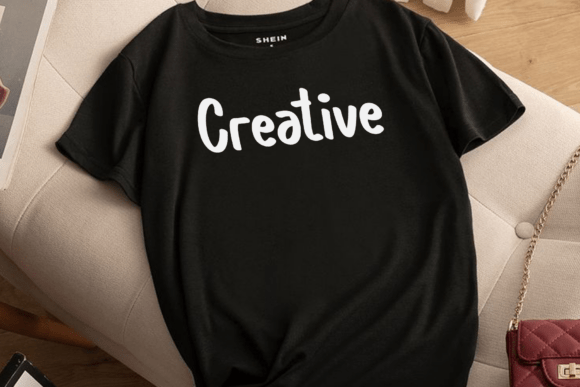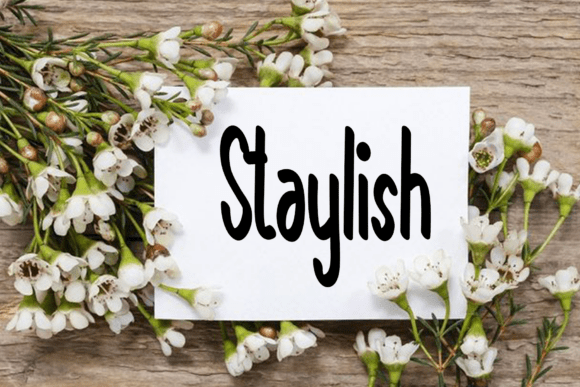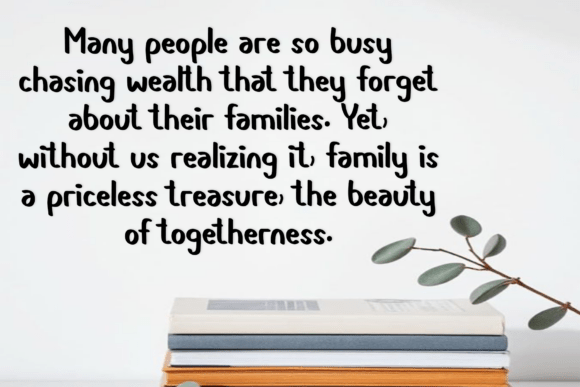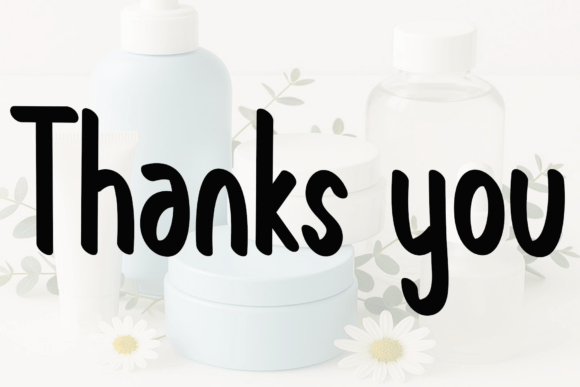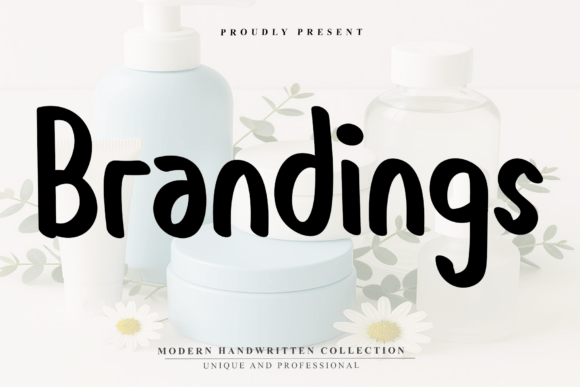
Introducing Brandings Font: The Perfect Blend of Warmth and Personality
In the world of typography, fonts play a crucial role in conveying the tone and personality of a brand. For designers and crafters, finding the right font can make all the difference in creating a lasting impression. This is where Brandings Font comes in – a casual handwritten font that radiates warmth and personality, perfect for adding a personal touch to any design.
The Charm of Handwritten Typography
Brandings Font is a beautiful example of handwritten typography, featuring smooth strokes, natural curves, and easy-flowing letterforms. Its authentic handwriting style captures the essence of human touch, making it ideal for designs that require a personal and friendly feel. The font’s modern and approachable style ensures that it stays relevant and versatile, suitable for a wide range of applications.
Key Features of Brandings Font
- Smooth Strokes: Brandings Font boasts smooth, fluid strokes that give it a natural and effortless look.
- Natural Curves: The font’s curves are organic and authentic, adding to its charm and character.
- Easy-Flowing Letterforms: The letterforms are designed to flow seamlessly, creating a sense of continuity and harmony.
- Modern and Approachable: Brandings Font strikes the perfect balance between modernity and approachability, making it suitable for a wide range of designs.
Ideal Use Cases for Brandings Font
Brandings Font is incredibly versatile and can be used in various design projects, including:
- Quotes: Add a personal touch to inspirational quotes, making them more relatable and engaging.
- Invitations: Create warm and inviting invitations for special occasions, such as weddings, birthday parties, or baby showers.
- Branding: Use Brandings Font to create a unique and recognizable brand identity that resonates with your target audience.
- Social Media Posts: Elevate your social media presence with eye-catching posts that feature a personal and friendly tone.
Benefits of Using Brandings Font
By incorporating Brandings Font into your designs, you can enjoy several benefits, including:
- Readability: The font’s clear and easy-to-read design ensures that your message is conveyed effectively.
- Charm: Brandings Font adds a touch of warmth and personality to your designs, making them more engaging and memorable.
- Versatility: The font’s adaptability makes it suitable for various design projects, from digital to print.
Brandings Font is a beautiful, casual handwritten font that can add a personal and friendly touch to any design. Its smooth strokes, natural curves, and easy-flowing letterforms make it perfect for quotes, invitations, branding, and social media posts. With its effortless style and versatile character, Brandings Font delivers both readability and charm, making it an excellent choice for designers and crafters.